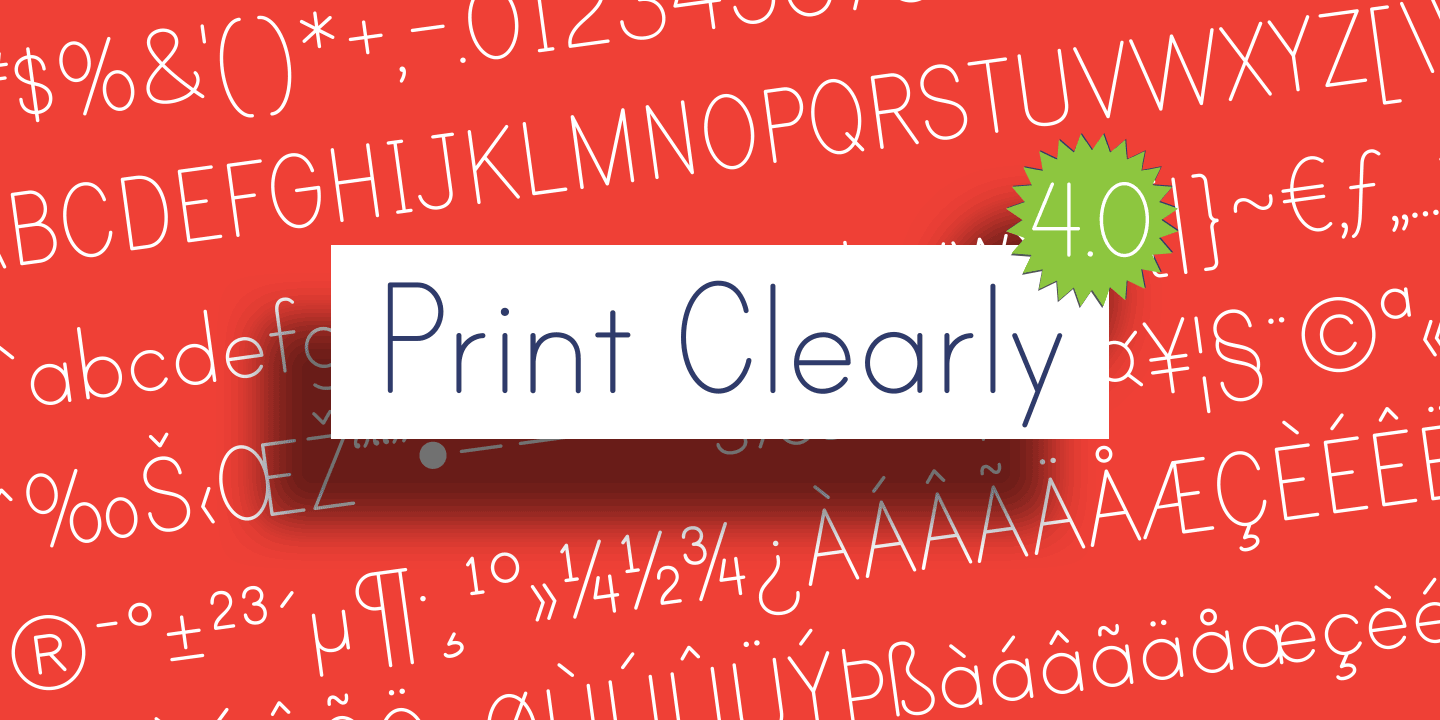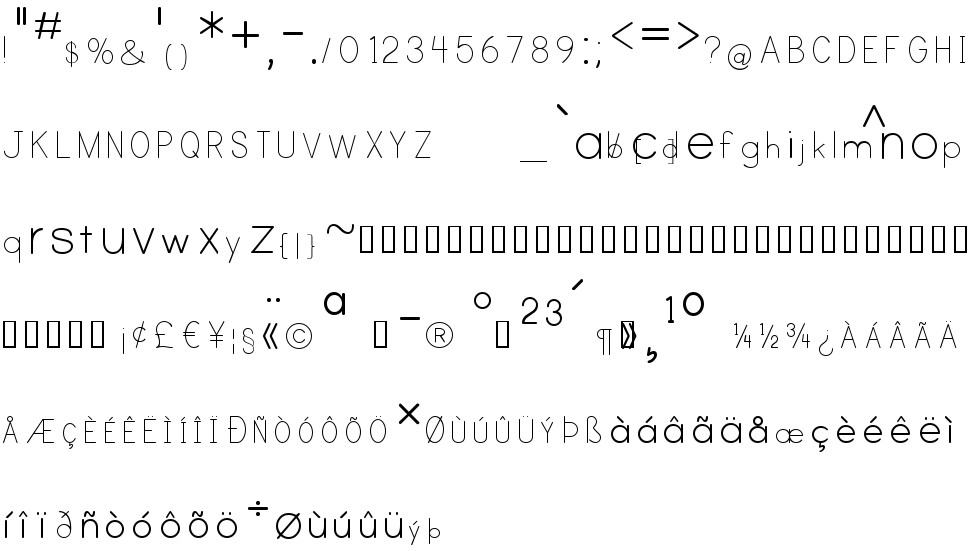
Download Print Clearly Font . The print clearly font is a basic sans serif font family that contains an awesome clean appearance. Free download of print clearly font family with 3 styles. You can still download the original version here. Print clearly is available in three styles regular, bold & dashed. In basic > sans serif. Mr jess latham is known as the primary designer of that font. Download and install the print clearly free font family by blue. Download and install the print clearly font by blue vinyl fonts. Print clearly à € by jess latham. The print clearly font has been downloaded 180,631 times.
The print clearly font has been downloaded 180,631 times. Print clearly à € by jess latham. In basic > sans serif. You can still download the original version here. Mr jess latham is known as the primary designer of that font. Download and install the print clearly free font family by blue. Print clearly is available in three styles regular, bold & dashed. The print clearly font is a basic sans serif font family that contains an awesome clean appearance. Free download of print clearly font family with 3 styles. Download and install the print clearly font by blue vinyl fonts.
Print Clearly
Download Print Clearly Font You can still download the original version here. Mr jess latham is known as the primary designer of that font. In basic > sans serif. The print clearly font has been downloaded 180,631 times. Print clearly à € by jess latham. Print clearly is available in three styles regular, bold & dashed. Download and install the print clearly free font family by blue. Download and install the print clearly font by blue vinyl fonts. The print clearly font is a basic sans serif font family that contains an awesome clean appearance. You can still download the original version here. Free download of print clearly font family with 3 styles.
Print Clearly OT Schriftart kostenloser Download des Font und Download Print Clearly Font Print clearly à € by jess latham. Mr jess latham is known as the primary designer of that font. You can still download the original version here. Print clearly is available in three styles regular, bold & dashed. The print clearly font has been downloaded 180,631 times. The print clearly font is a basic sans serif font family that contains. Download Print Clearly Font.
Print Clearly V2 2.0 Created 12/7/01 Fonts Free Download Print Clearly Font Download and install the print clearly free font family by blue. Mr jess latham is known as the primary designer of that font. In basic > sans serif. You can still download the original version here. Print clearly à € by jess latham. Print clearly is available in three styles regular, bold & dashed. Free download of print clearly font. Download Print Clearly Font.
Download free Print Clearly Dashed Regular font Print Clearly Dashed Download Print Clearly Font The print clearly font is a basic sans serif font family that contains an awesome clean appearance. Download and install the print clearly font by blue vinyl fonts. In basic > sans serif. Print clearly is available in three styles regular, bold & dashed. The print clearly font has been downloaded 180,631 times. Print clearly à € by jess latham.. Download Print Clearly Font.
Print Clearly Dashed Regular Download for free at Free Fonts Download Print Clearly Font Download and install the print clearly free font family by blue. In basic > sans serif. Print clearly is available in three styles regular, bold & dashed. The print clearly font has been downloaded 180,631 times. Mr jess latham is known as the primary designer of that font. Download and install the print clearly font by blue vinyl fonts. Free. Download Print Clearly Font.
Best Copyright Free Fonts (2023) Download Free Fonts For Commercial Download Print Clearly Font In basic > sans serif. Print clearly is available in three styles regular, bold & dashed. The print clearly font has been downloaded 180,631 times. Download and install the print clearly free font family by blue. Download and install the print clearly font by blue vinyl fonts. The print clearly font is a basic sans serif font family that contains. Download Print Clearly Font.
Download free Print Clearly Regular font print_clearly_tt.ttf Download Print Clearly Font Mr jess latham is known as the primary designer of that font. Download and install the print clearly font by blue vinyl fonts. The print clearly font is a basic sans serif font family that contains an awesome clean appearance. Print clearly is available in three styles regular, bold & dashed. Print clearly à € by jess latham. In basic. Download Print Clearly Font.
Print Clearly Regular Download for free at Free Fonts Download Print Clearly Font Print clearly à € by jess latham. The print clearly font is a basic sans serif font family that contains an awesome clean appearance. Print clearly is available in three styles regular, bold & dashed. The print clearly font has been downloaded 180,631 times. Mr jess latham is known as the primary designer of that font. Download and install the. Download Print Clearly Font.
Print Clearly Font Free Download Print Clearly Font Free download of print clearly font family with 3 styles. In basic > sans serif. The print clearly font has been downloaded 180,631 times. Download and install the print clearly font by blue vinyl fonts. Print clearly is available in three styles regular, bold & dashed. Download and install the print clearly free font family by blue. The print clearly. Download Print Clearly Font.